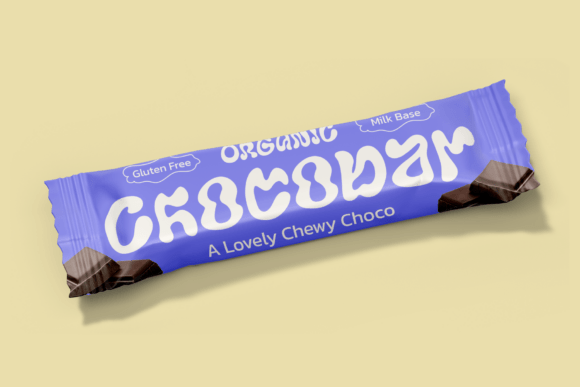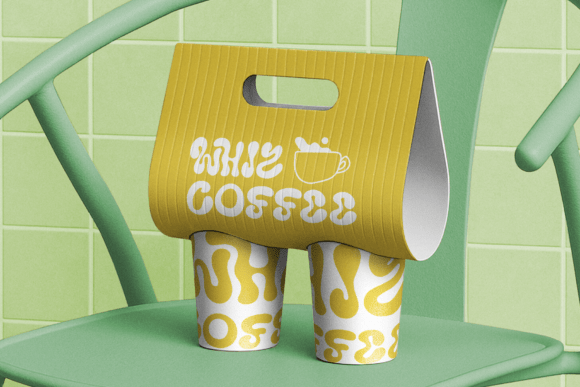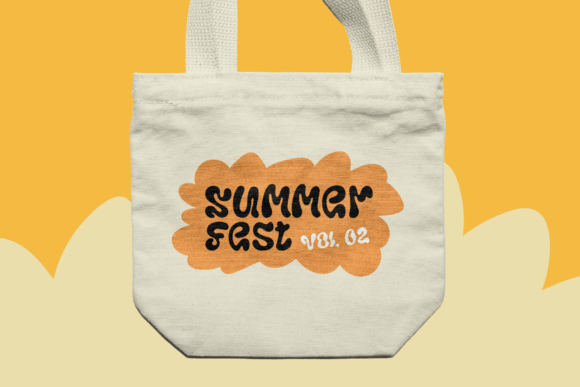
Introduction to Menjalar Liquid Font
As a designer, have you ever stumbled upon a typeface that makes you want to dive in and explore its every curve? For me, that moment came when I discovered the Menjalar Liquid Font. Its bold, wavy forms and quirky, hand-melted character style had me hooked from the very start. This experimental liquid display font is a true design treasure, offering a high-contrast, bold aesthetic that demands attention and captures the playful, nostalgic vibe of ’70s typography mixed with modern digital fluidity.
What sets Menjalar Liquid Font apart is its unique ability to add a dynamic, wavy aesthetic to any design. Its exaggerated curves, bubbly silhouettes, and fun, unconventional rhythm make it an ideal choice for creative projects that need a little extra oomph. Whether you’re designing a food brand, coffee shop, product, or packaging, this font is sure to bring a memorable, eye-catching element to your work.
As a valuable design resource, Menjalar Liquid Font offers a high-quality, transparent background that makes it perfect for free download and use in a variety of creative projects. With its versatility and unique style, this font is sure to become a go-to choice for designers looking to add a little extra personality to their work.
Key Features of Menjalar Liquid Font
- Includes a range of glyphs, including uppercase and lowercase letters, numbers, and punctuation marks.
- Designed with a modern and sleek aesthetic, making it perfect for contemporary design projects.
Honest Review: Menjalar Liquid Font
As a designer, I’m always on the lookout for high-quality design resources that can elevate my creative projects. Recently, I had the chance to try out the Menjalar Liquid Font, and I’m excited to share my thoughts with you.
- Unique and modern design: The Menjalar Liquid Font has a distinct, liquid-like feel that sets it apart from more traditional fonts.
- High quality: The font is beautifully rendered, with clear and crisp lines that make it perfect for digital designs.
- Limited versatility: While the font is perfect for digital designs, it may not be the best choice for print projects.
- Transparent background: The font’s transparent background may cause issues with certain design elements or backgrounds.
Overall, I’m impressed with the Menjalar Liquid Font. Its unique design and high quality make it a valuable addition to any designer’s toolkit. While it may have some limitations, I believe it’s a solid choice for designers working on digital creative projects.
Menjalar Liquid Font: A High-Quality Design Resource
Getting the Most Out of Menjalar Liquid Font
For the best results, use Menjalar Liquid Font on a transparent background. This will allow you to create high-quality designs with a professional look. You can also experiment with different font sizes, colors, and styles to achieve a unique design.
Menjalar Liquid Font is perfect for creative projects, such as designing social media graphics, posters, or infographics. It’s also ideal for branding materials, logos, or presentations. With its high-quality design and transparent background, Menjalar Liquid Font is a valuable resource for any designer.